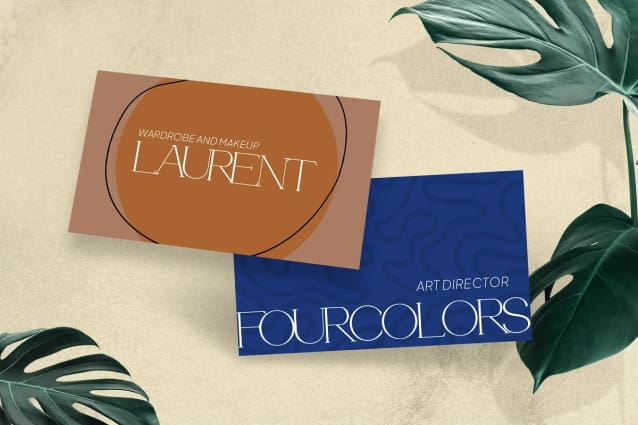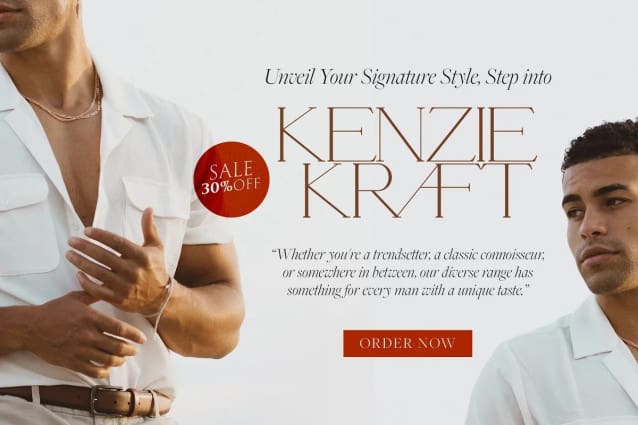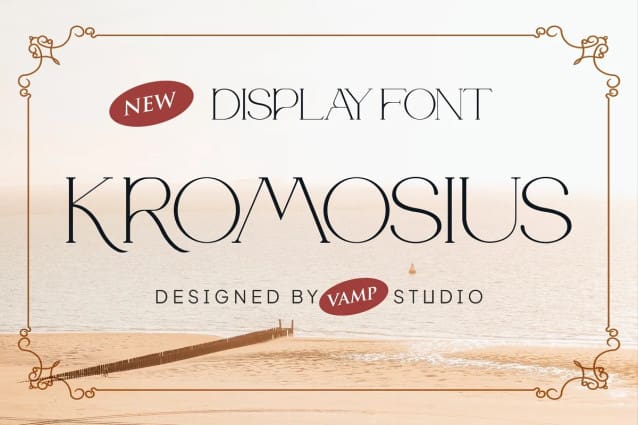
Kromosius Font
Kromosius Font is a modern display typeface. This font looks very simple, clean, and elegant. Specially designed by skilled hands makes this font is the perfect fit for all your big projects.
Kromosius is perfect for branding projects, logo, wedding designs, social media posts, advertisements, product packaging, product designs, label, photography, watermark, invitation, stationery and any projects that need handwriting taste.